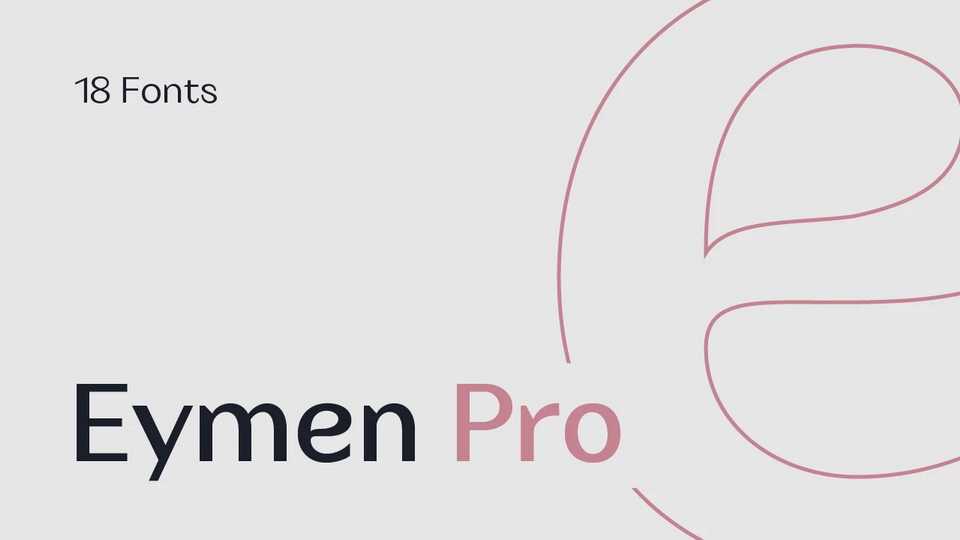
Download Eymen Pro font, a typeface that has both hard and fun dynamics. In fact, Eymen Pro was primarily dedicated to cool magazine paragraphs and content in the textile industry.
Designer: Serdar Öztürk